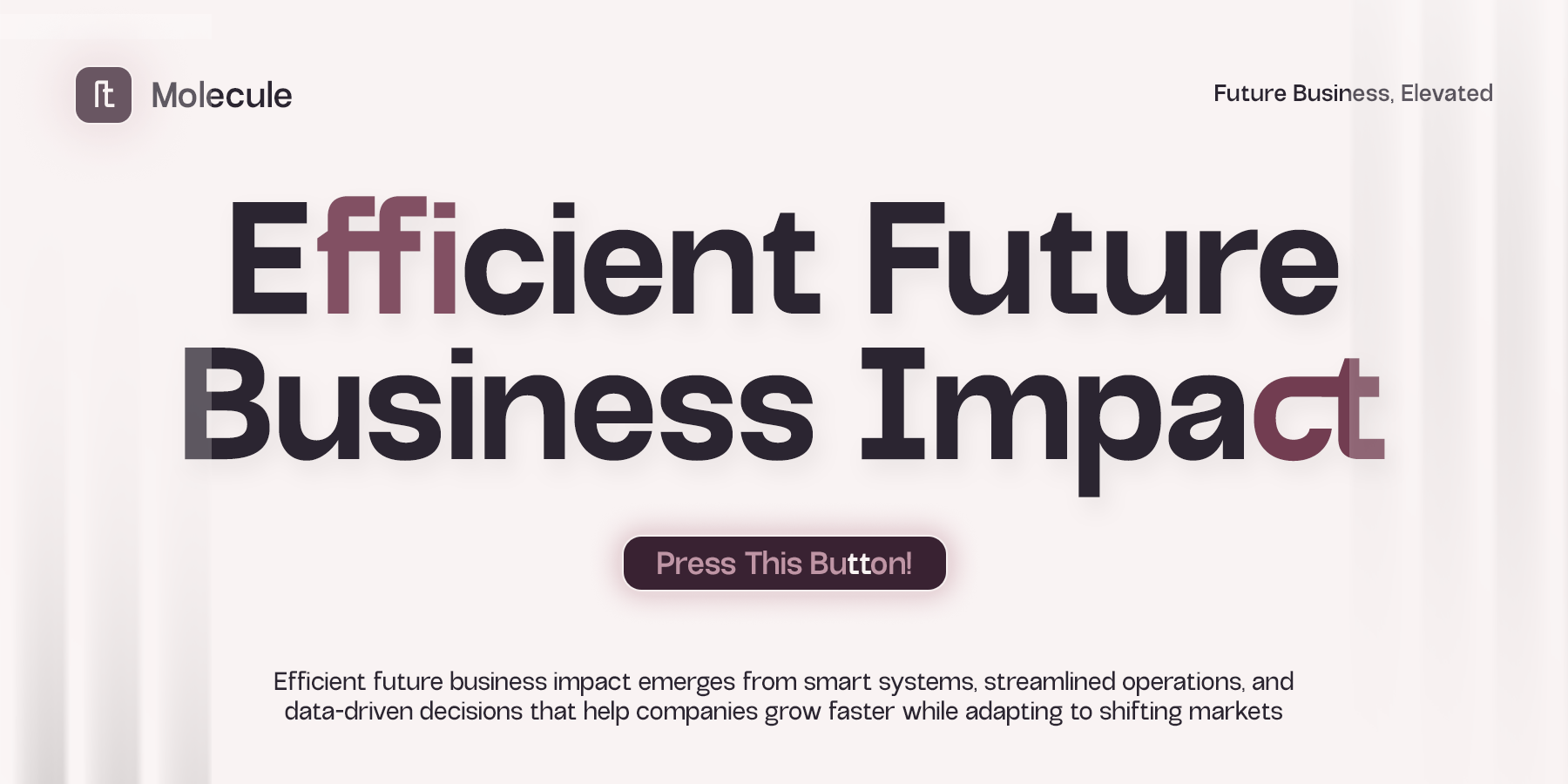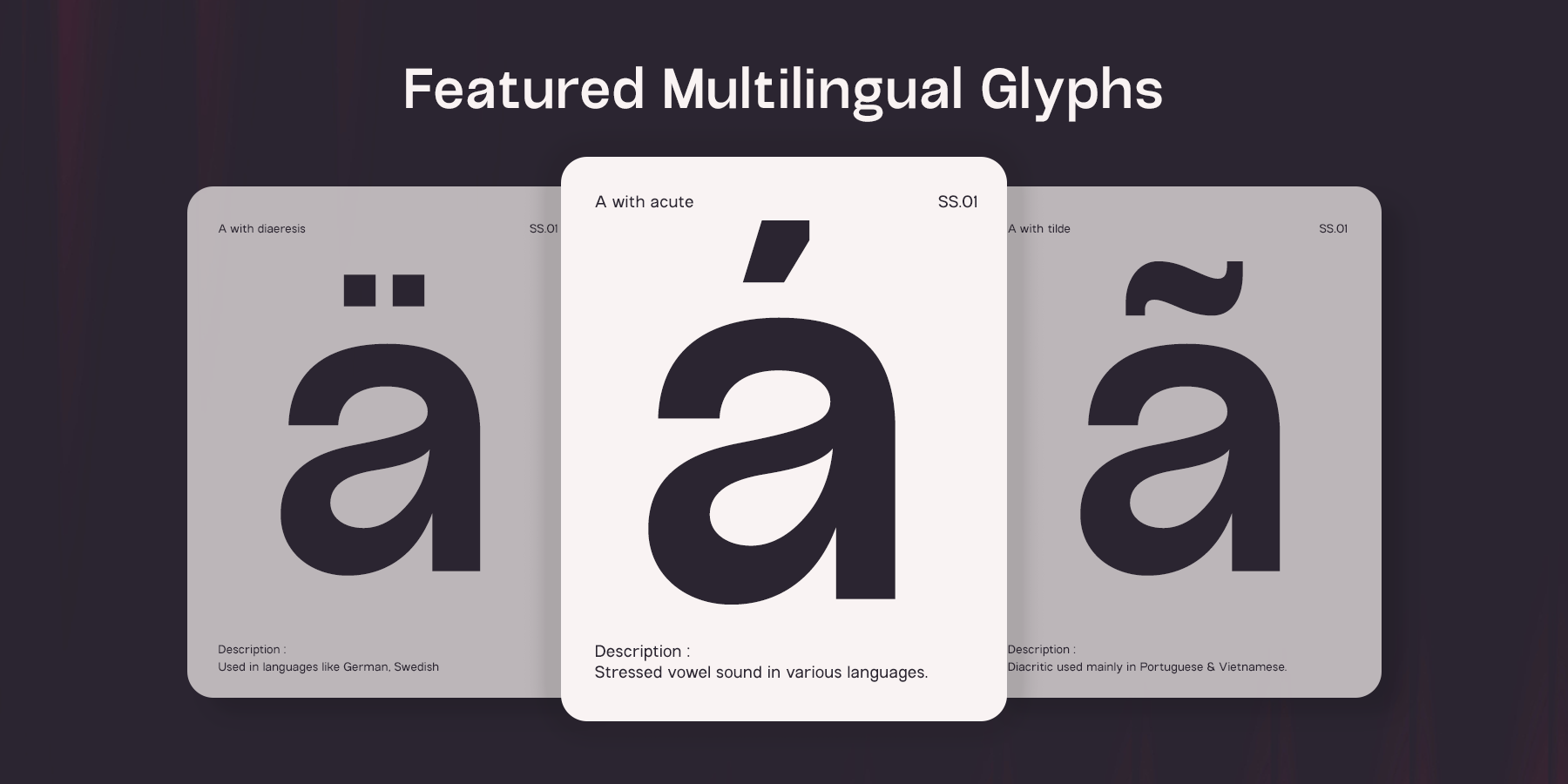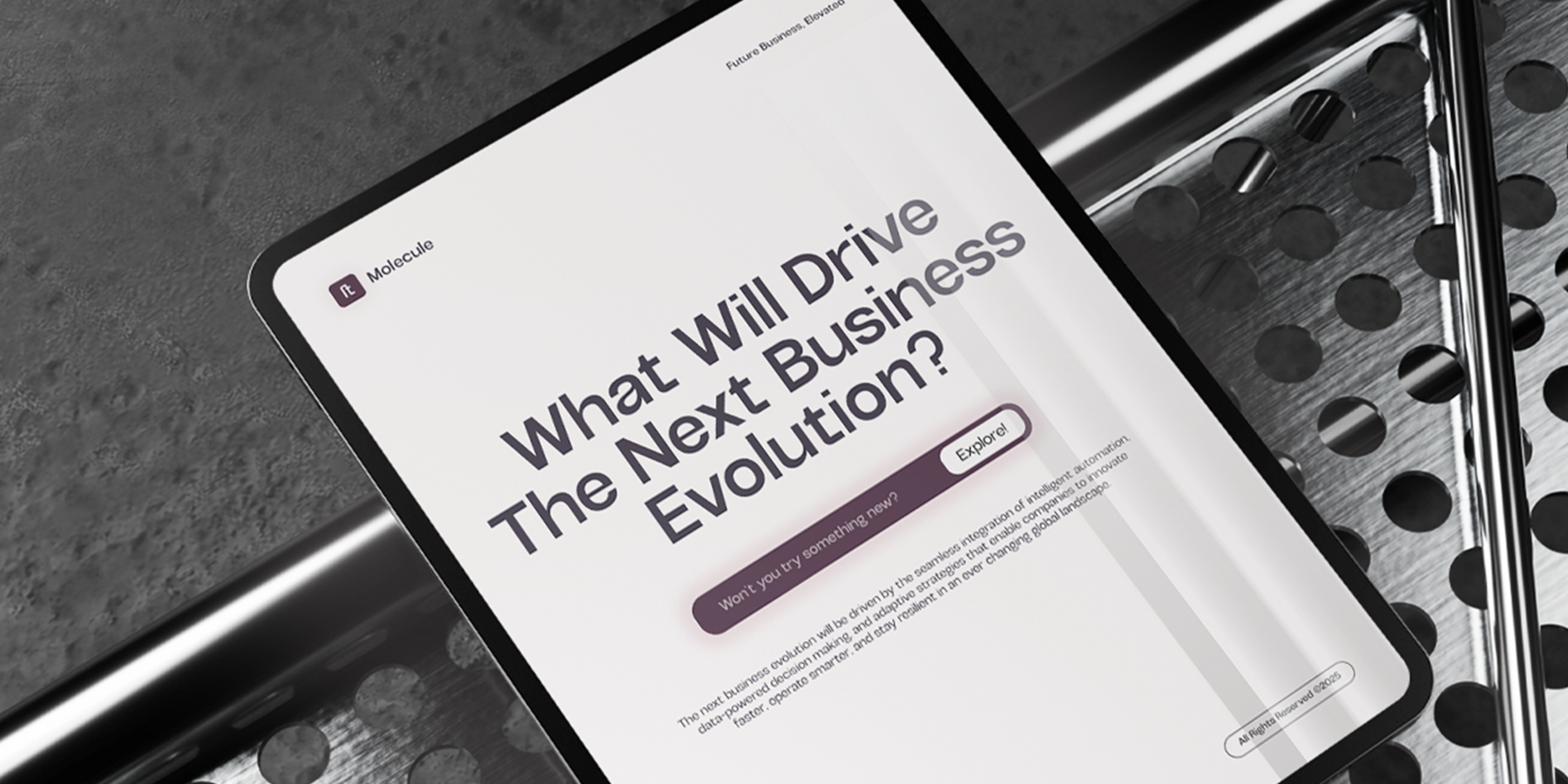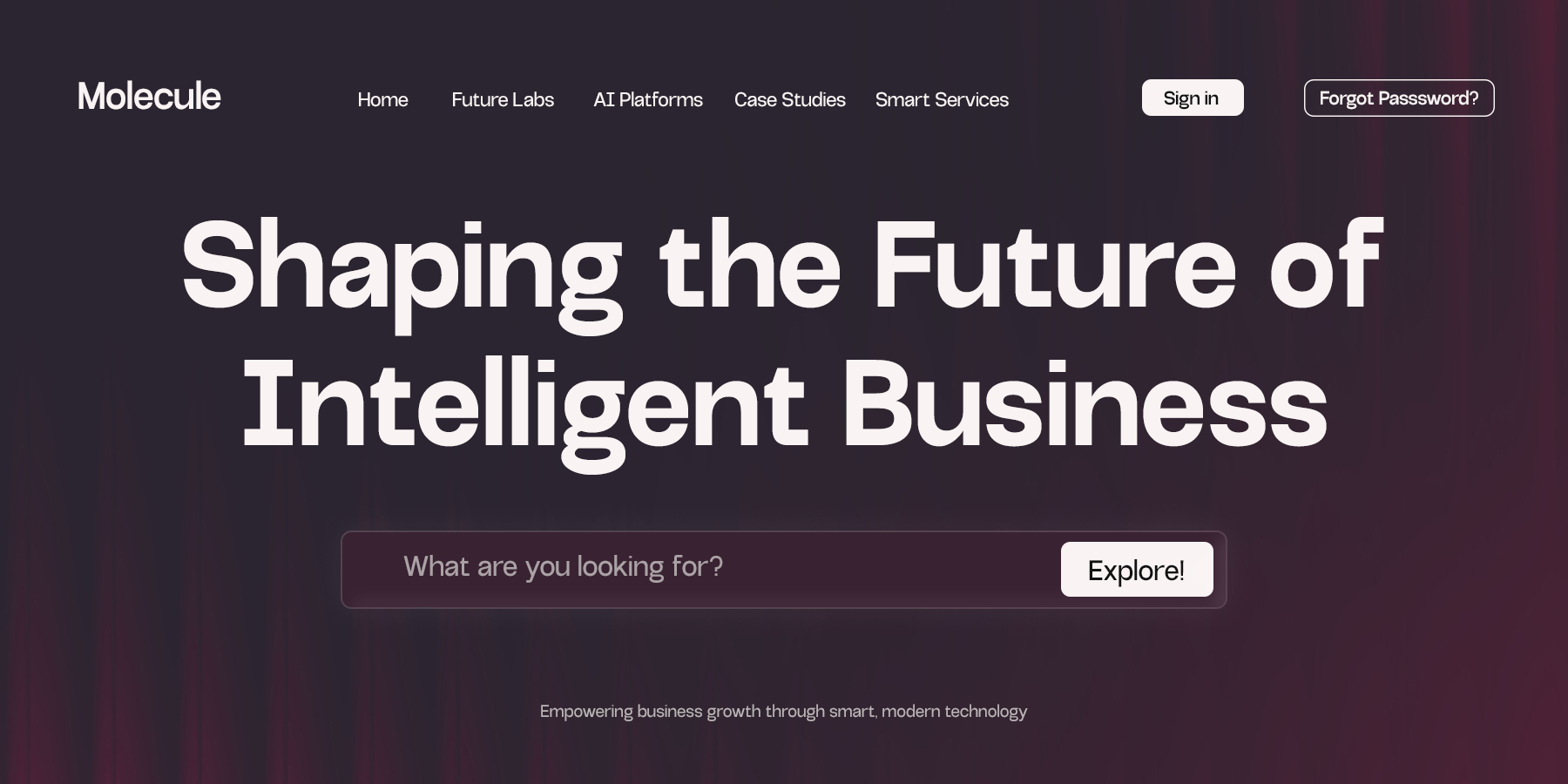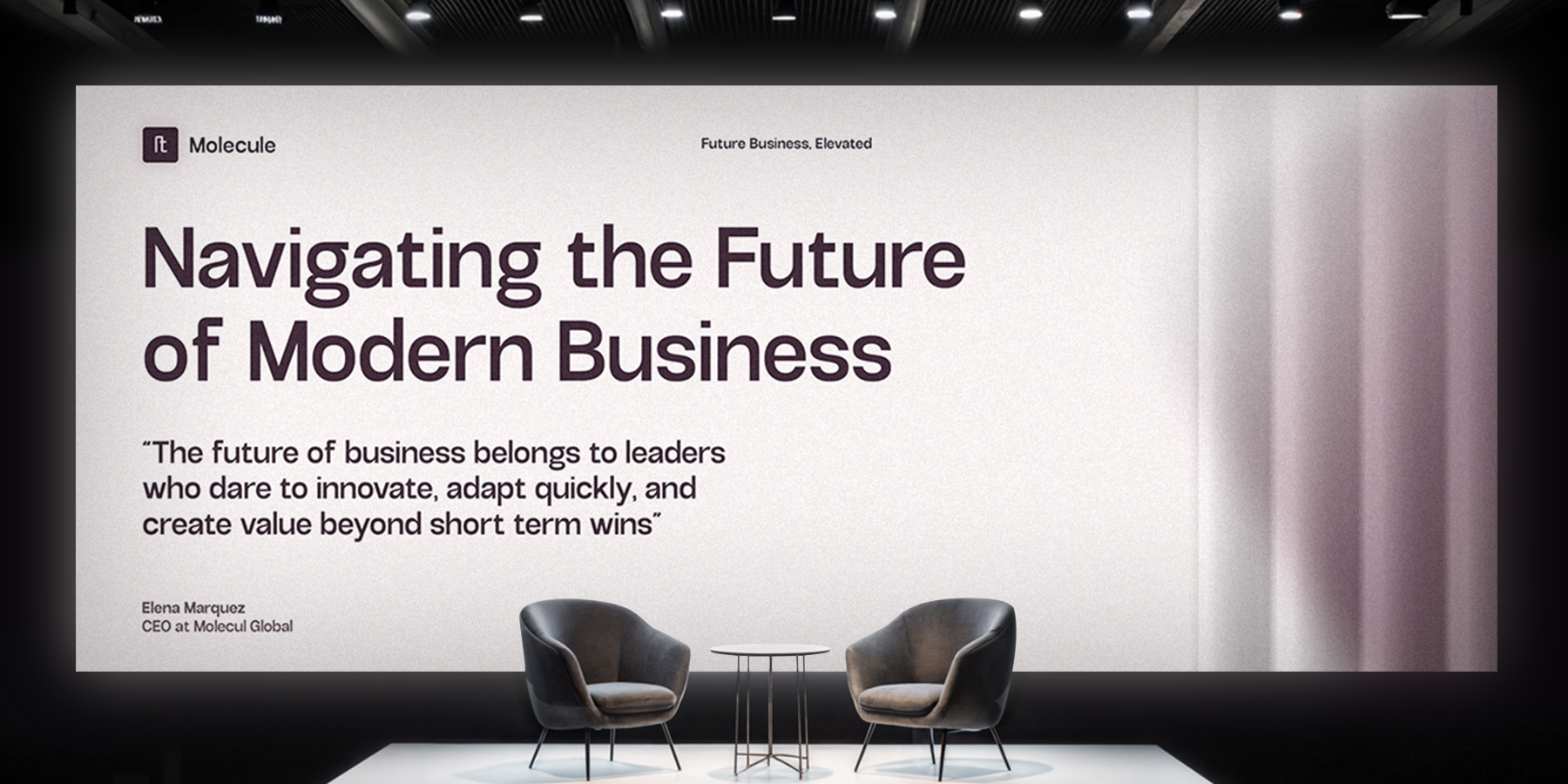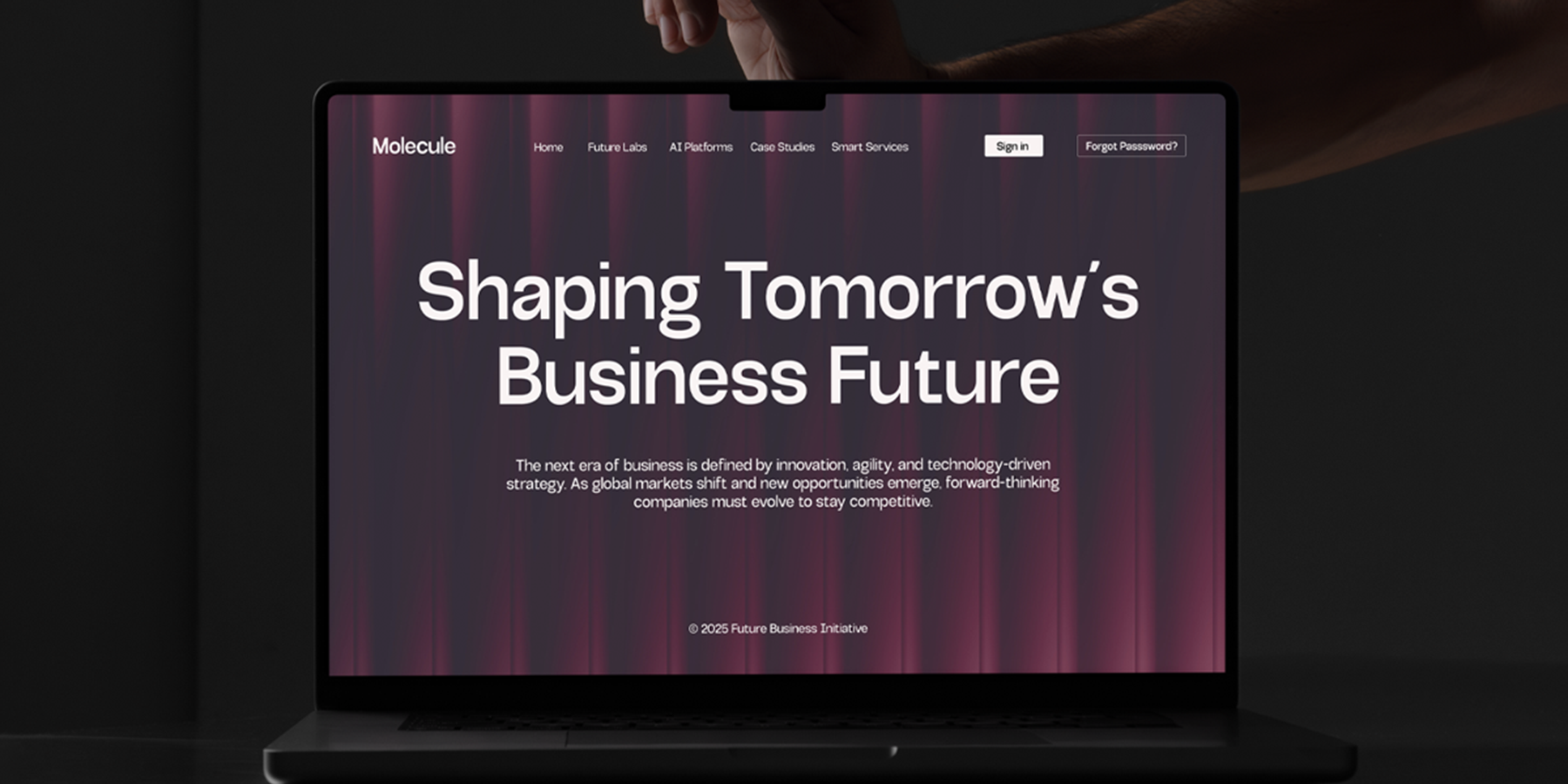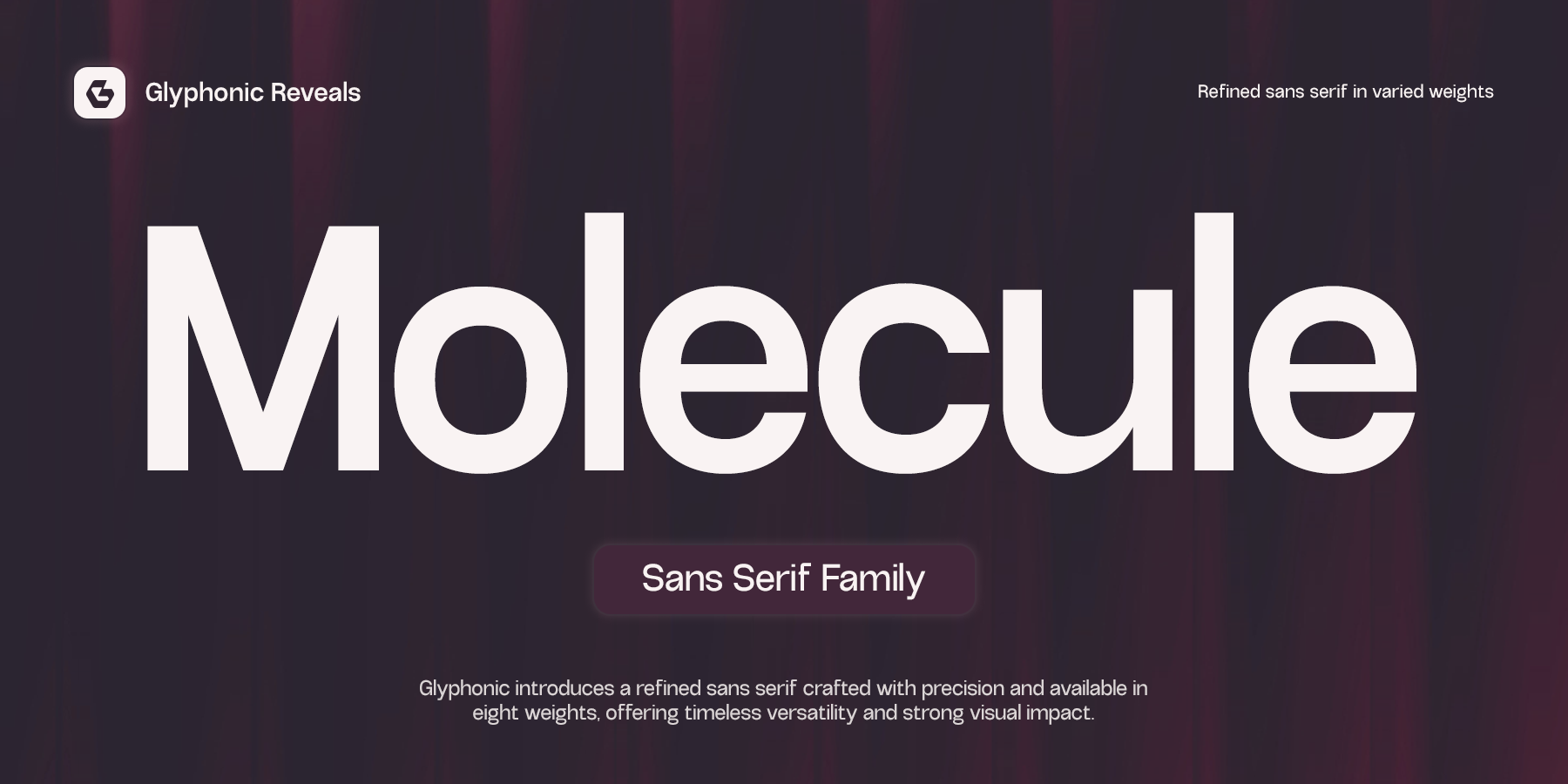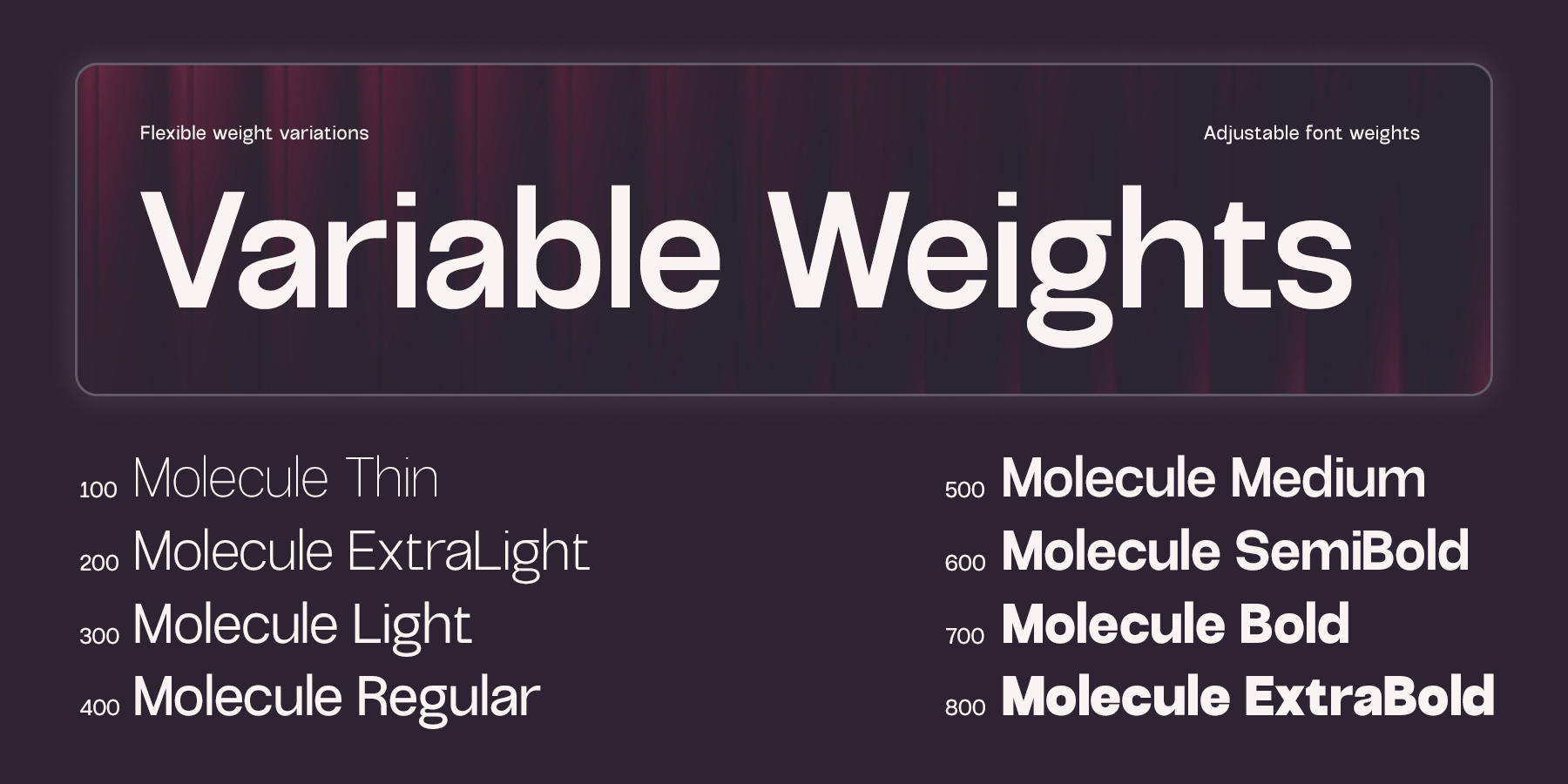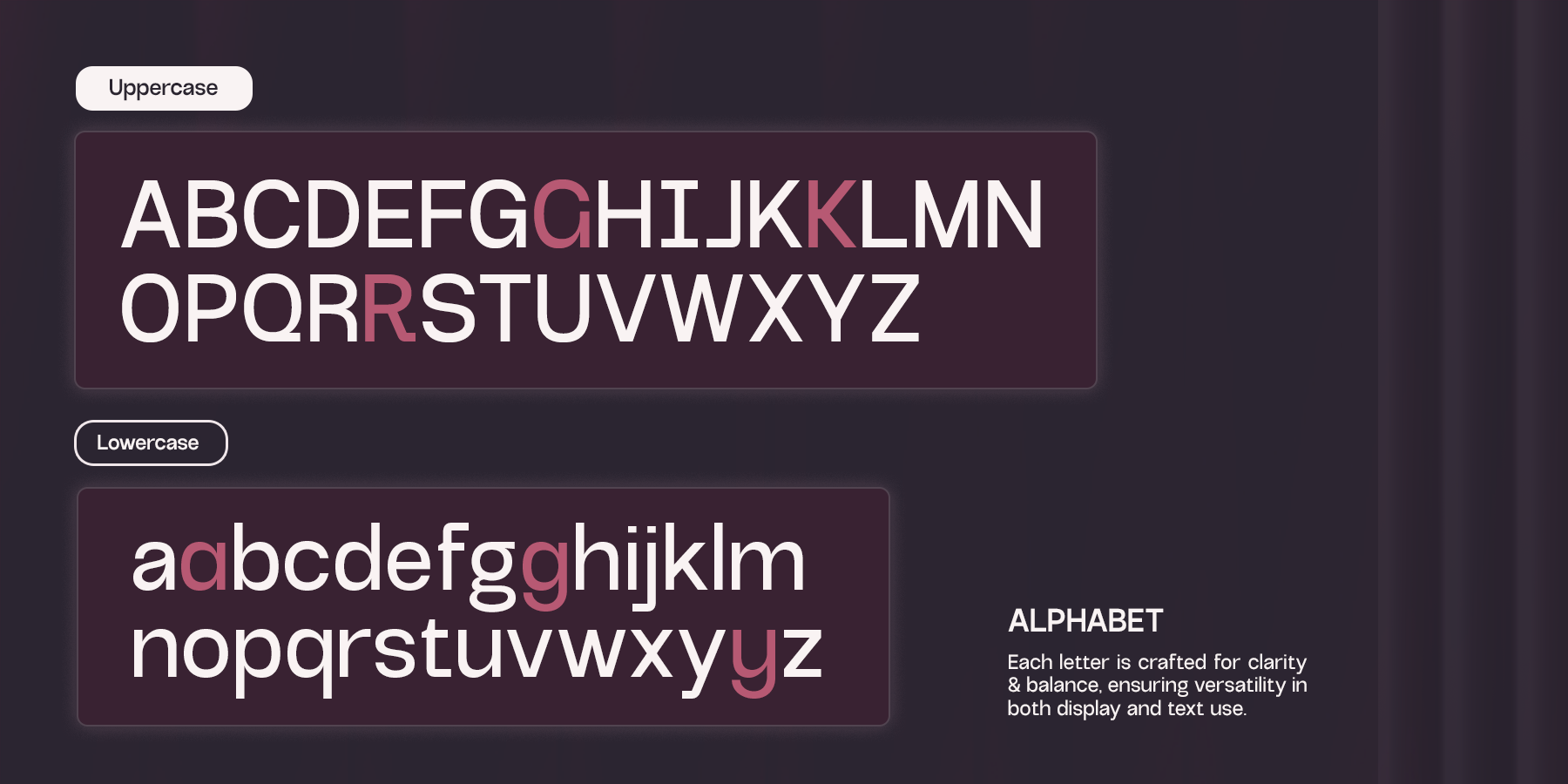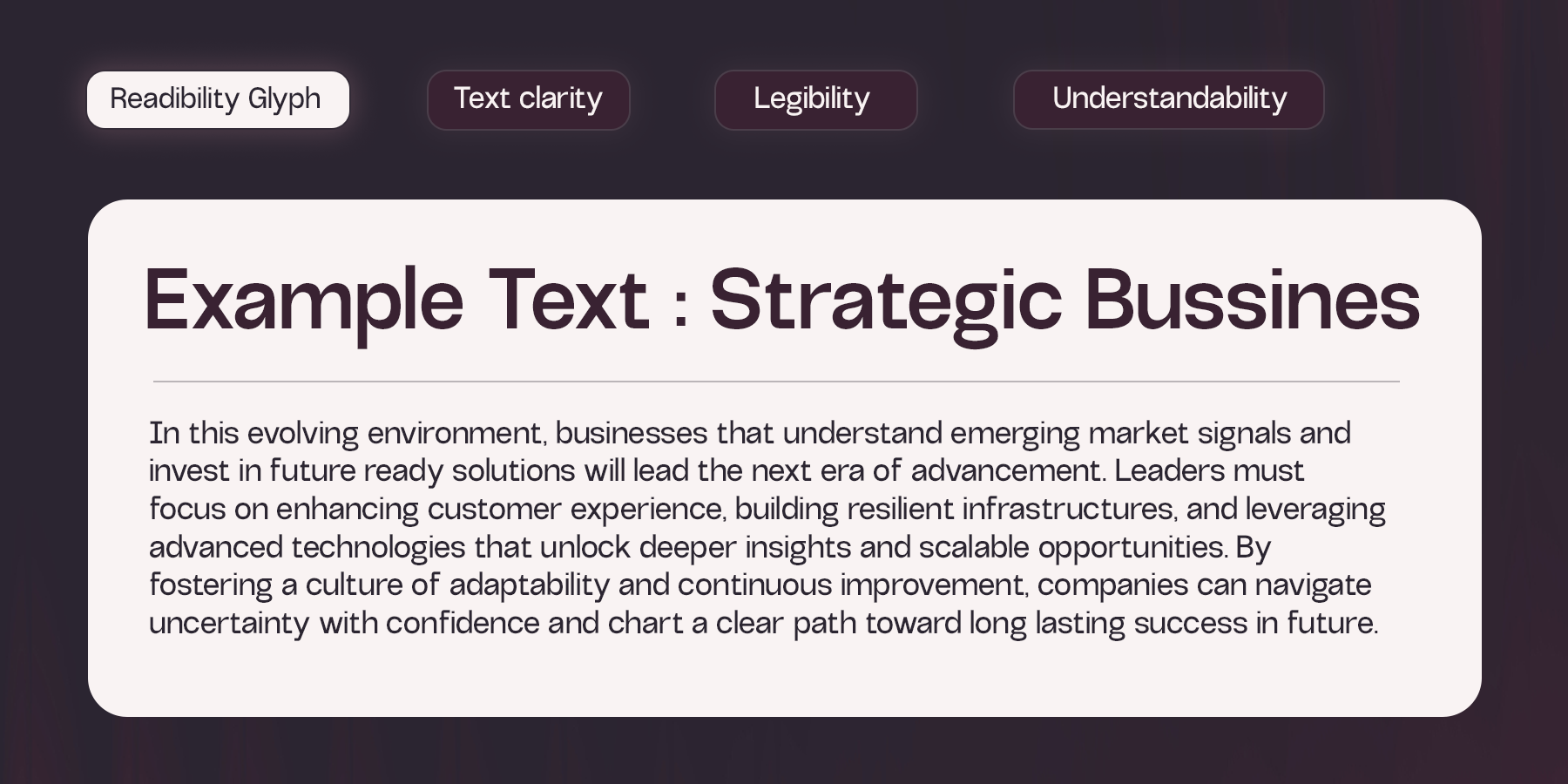
GC Molecule - Refined Sans Serif
**GC Molecule by Glyphonic – Refined Sans Serif is a modern, clean, and precisely crafted typeface designed for clarity, refinement, and versatile usability.** With smooth geometry and balanced stroke details, it offers a polished and contemporary voice that performs beautifully across both print and digital environments.
Created to embody refined simplicity without sacrificing character, **GC Molecule** is ideal for branding, editorial layouts, technology-driven projects, minimalist design systems, and sleek visual identities. Its harmonious proportions and careful detailing make this typeface adaptable yet uniquely distinctive.
Whether you're building sharp interface designs, bold headlines, or clean and minimalistic posters, **GC Molecule** brings sophistication, modernity, and effortless elegance to your typography.
Features:
- Uppercase & Lowercase
- Numbers & Punctuation
- Refined Geometric Construction
- Multilingual Support (170+ Languages)
**Enhance your design with the polished clarity and refined modern style of GC Molecule – Refined Sans Serif.**